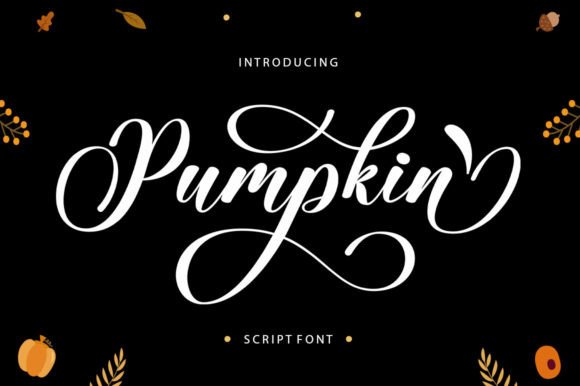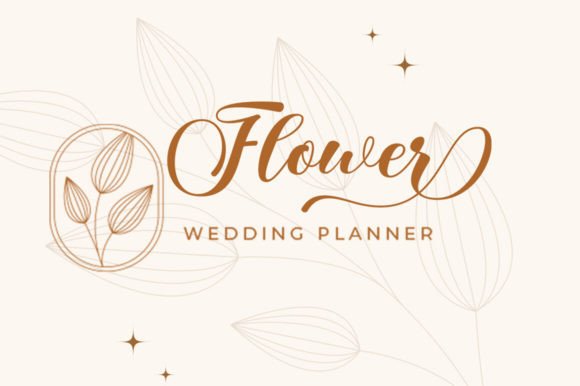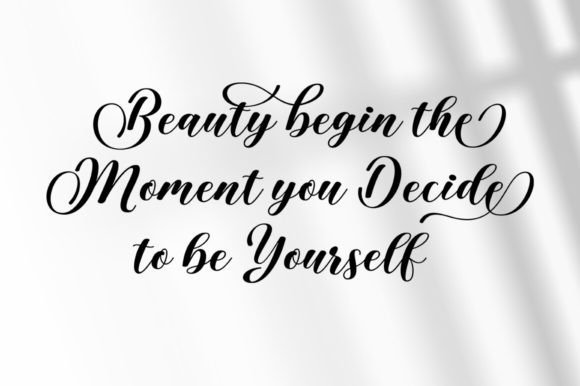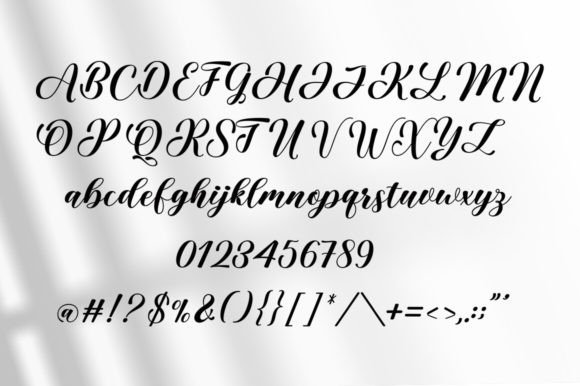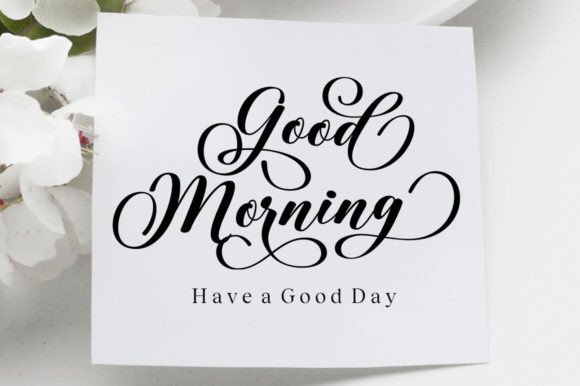
Pumpkin Font
Pumpkin Script is a new modern script font with an irregular baseline. Pumpkin Script looks lovely on wedding invitations, thank you cards, quotes, greeting cards, logos, business cards and more.